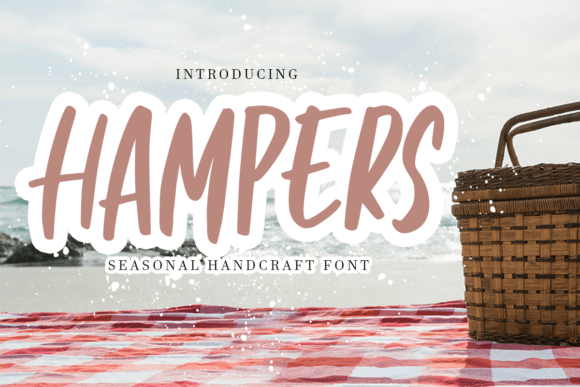
The Perfect Font for Festive Designs
As a designer, have you ever found yourself brainstorming ideas for a holiday project, only to be stuck on the perfect font to capture the spirit of the season? You know, that magical moment when the words on the page come alive and transport your audience to a place of joy and wonder.
Enter Hampers Font, a delightful typeface that embodies the essence of holidays and special occasions. This handcrafted font is designed to add a touch of warmth and charm to your designs, making them truly unforgettable. Whether you’re creating Christmas cards, Easter invitations, or posters for any other festive event, Hampers Font is the perfect choice. Its whimsical style is sure to delight your audience and make your designs stand out from the crowd.
As a designer, you know how valuable a great font can be in elevating your work. Hampers Font is no exception, offering a unique and playful style that’s perfect for adding a personal touch to your festive designs.
Hampers Font Key Features
- Font Style: Hampers Font is a beautiful, elegant script font designed to add a touch of sophistication to any design project.
- Character Set: Hampers Font includes a wide range of characters, including uppercase and lowercase letters, numbers, punctuation marks, and special characters.
- Unique Characteristics: Hampers Font features a unique, handwritten style with subtle imperfections and flourishes, adding a touch of personality to any design.
Hampers Font Review
I recently had the chance to work with the Hampers font, and I must say it’s been a mixed bag for me. Here are my thoughts.
- The Hampers font has a unique, quirky feel that’s perfect for modern branding and packaging design.
- It’s incredibly versatile, working well for both digital and print applications.
- The font is highly legible, even at smaller sizes, making it a great choice for labels and signage.
- The Hampers font can be quite busy, with a lot of visual clutter. This may not be suitable for designs where clarity is key.
- The font lacks a clear ‘bold’ weight, which can make it difficult to create contrast and hierarchy in designs.
- There are limited language support options available, which may be a concern for international designs.
Overall, I think the Hampers font is a great choice for designers looking to add some personality to their projects. While it may have some limitations, its unique feel and versatility make it a great option for modern branding and packaging design.
To get the most out of the Hampers Font, consider the following tips:
- Use the Hampers Font for titles, headings, and other large text elements.
- Pair the Hampers Font with a clean and simple sans-serif font for body text
Alternatives to Hampers Font for Designers
Great Vibes is a beautiful, handwritten font perfect for adding a touch of elegance and sophistication to your designs. It’s ideal for use in invitations, greeting cards, and other creative projects where a unique, artistic feel is desired. Great Vibes has a more refined and polished look compared to Hampers Font, making it a great choice for professional designs.